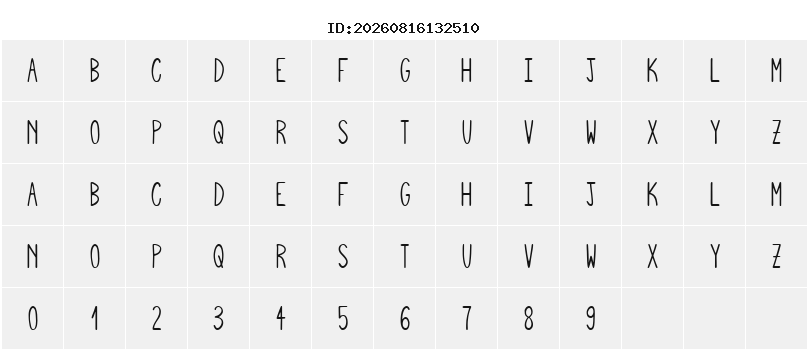
Squiggly Asta Preview
• Font Name: Squiggly Asta
• Full Font Name: Squiggly Asta
About Squiggly Asta.ttf
Squiggly Asta.ttf is a modern, elegant sans-serif font designed for ultimate readability and visual harmony. Perfect for branding, headlines, web design, and print materials.